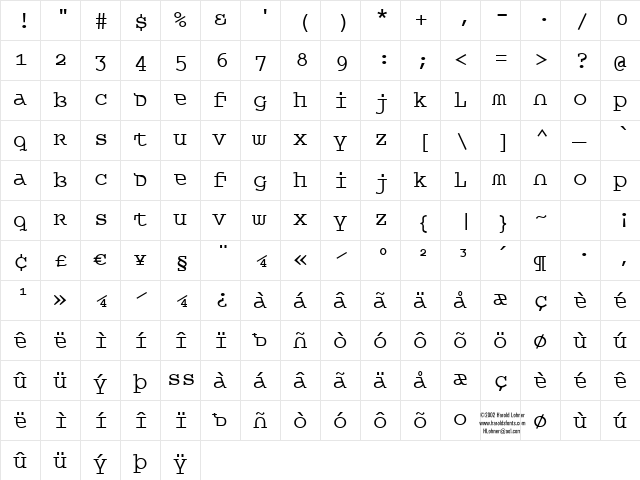
Queer TheoryRegular Regular
Design Context for Queer TheoryRegular Typeface
Queer TheoryRegular takes a measured approach to typography — its balanced proportions and neutral character make it a reliable workhorse for both digital and print work.